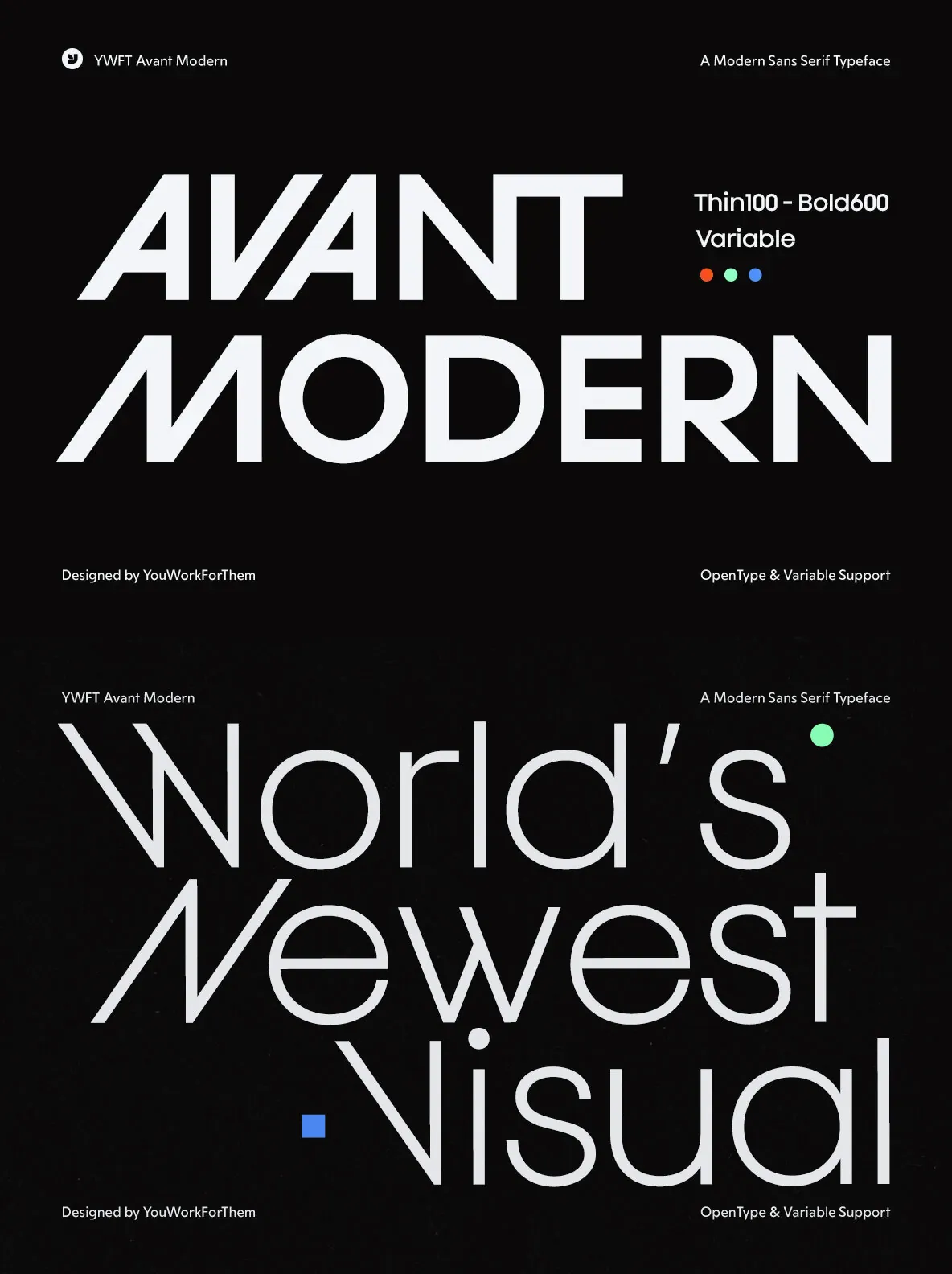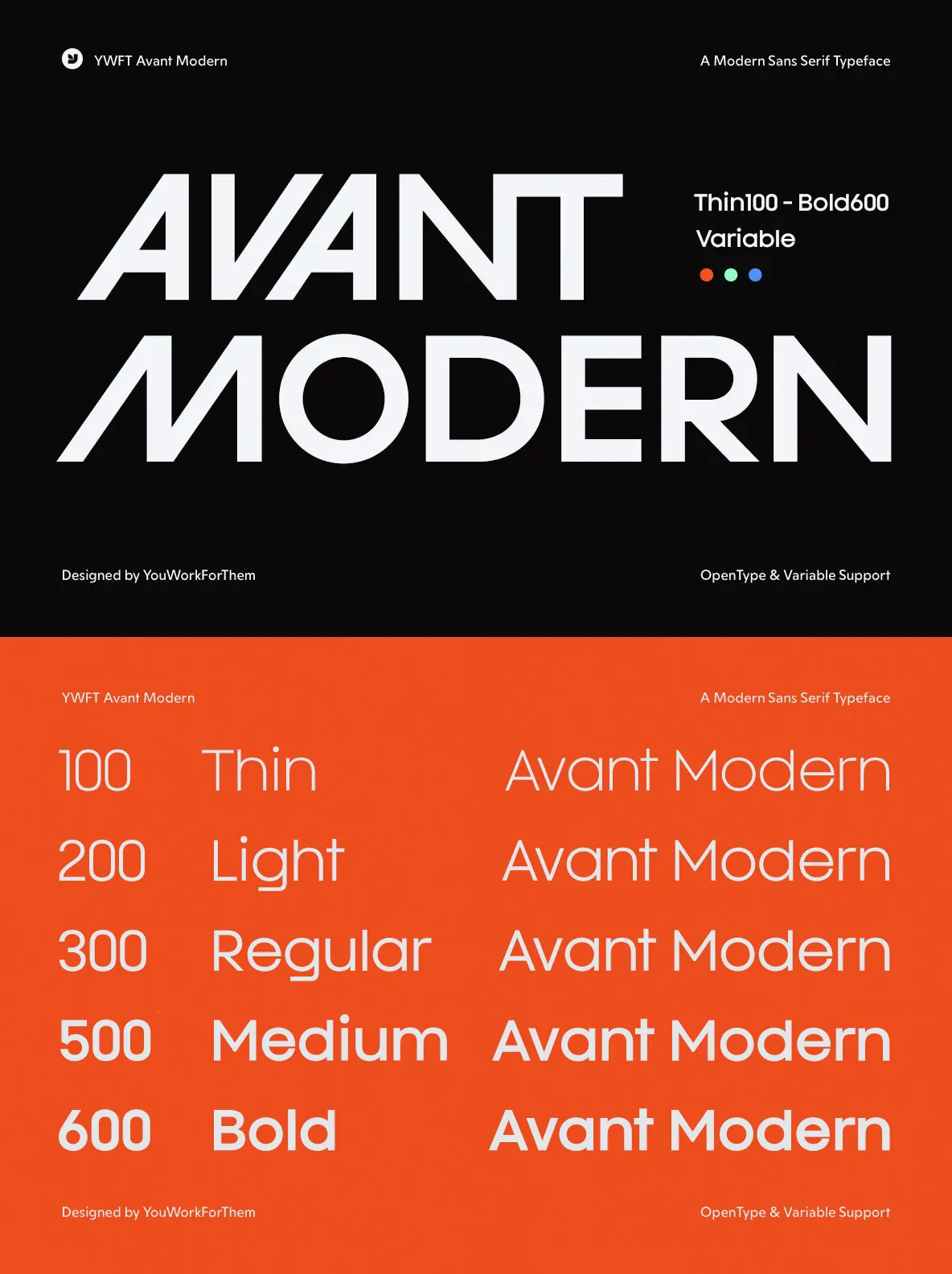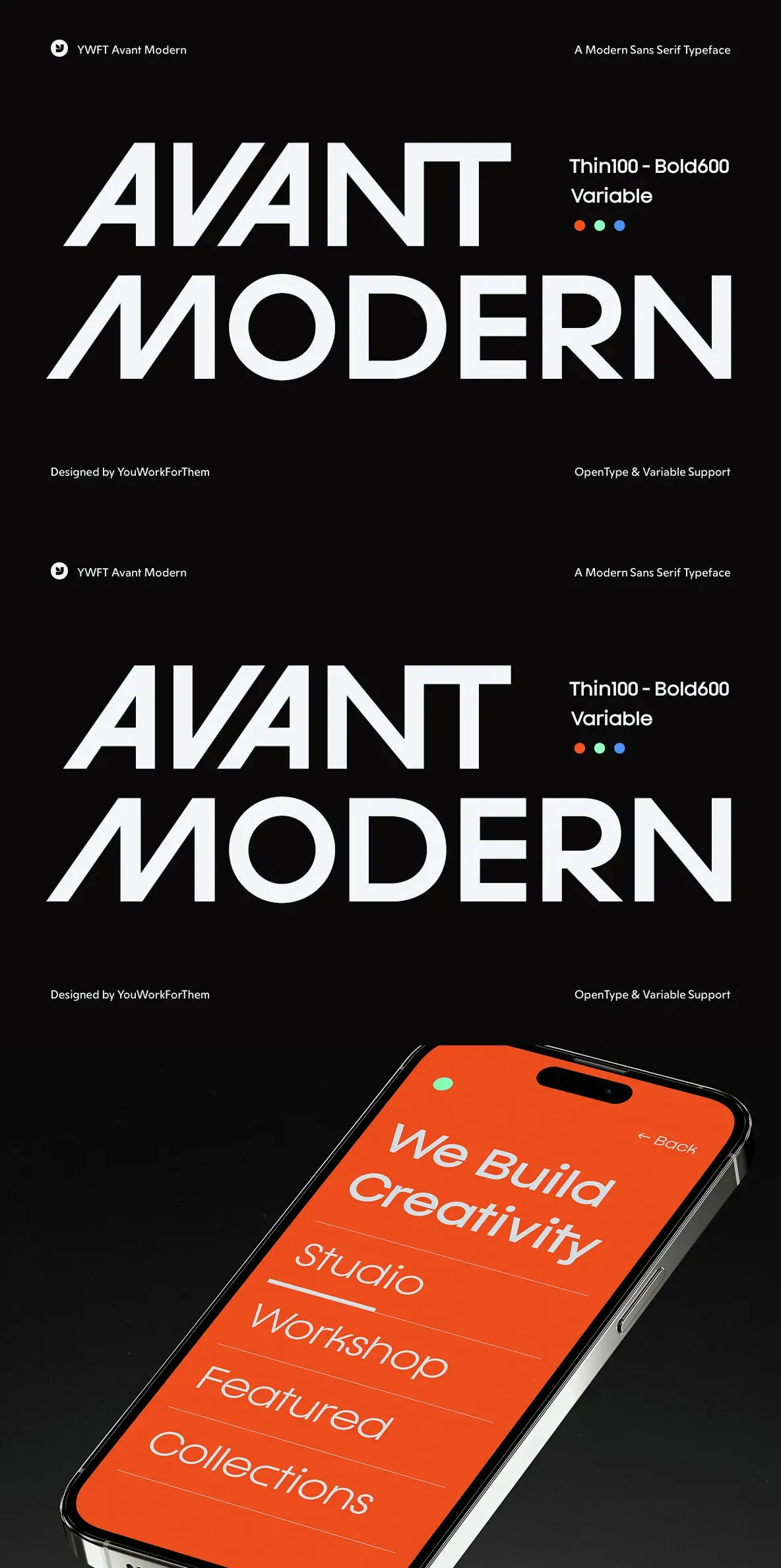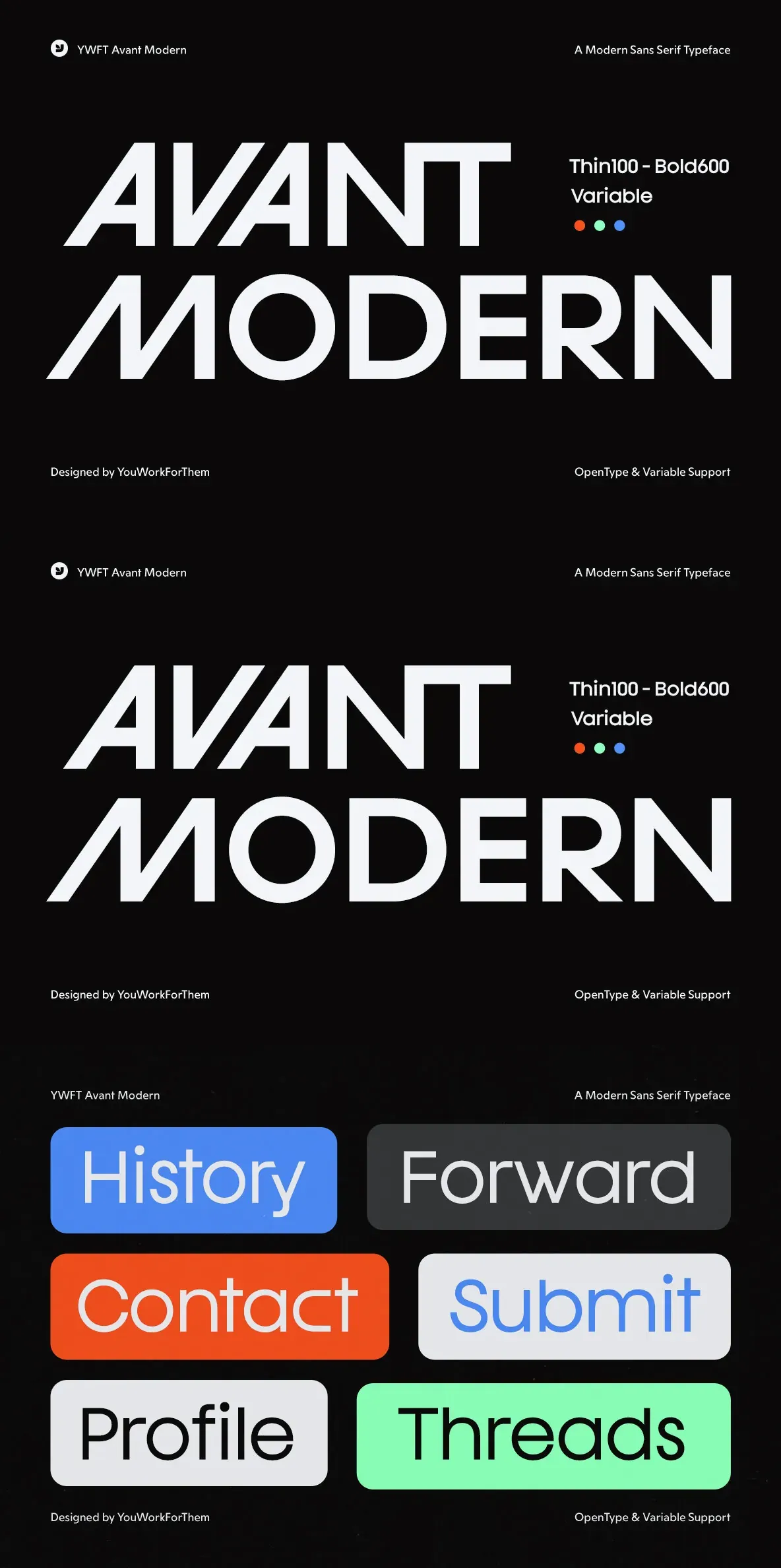
YWFT Avant Modern: Versatile Sans-Serif for Digital Typography
YWFT Avant Modern stands at the intersection of classic avant-garde influence and contemporary design. This sans-serif font offers a versatile framework for projects demanding clarity, flexibility, and a distinct visual language. Its five weights and a variable option provide refined typographic control, making it a reliable choice for designers seeking both adaptability and depth in their work. The family includes nearly 500 glyphs per weight, supporting creative, multilingual, and complex layouts. YWFT Avant Modern is tailored for practical use in today’s digital landscape, whether for branding, digital interfaces, or editorial content.
Features
Five weights and variable option
– Fine-tune weight settings for headlines and body text.
Extensive glyph set
– Approximately 500 glyphs per weight for comprehensive language and symbol support.
Advanced OpenType options
– Stylistic alternates, ligatures, and multiple style sets for nuanced typographic expression.
Key Applications
Social media campaigns
– Draws attention with bold, flexible styling.
On-screen and digital use
– Optimized for signage, e-books, and digital platforms.
Headline typography
– Maintains clarity and presence in high-impact titles.
Fashion and corporate branding
– Delivers a sophisticated look for brands requiring distinction.
Technology sectors
– Provides a forward-looking aesthetic for digital and tech-focused companies.
YWFT Avant Modern’s focus on practical typographic range and digital relevance makes it a strong asset for design professionals. Its variable capabilities and comprehensive glyph coverage position it as a dependable tool for diverse design demands.